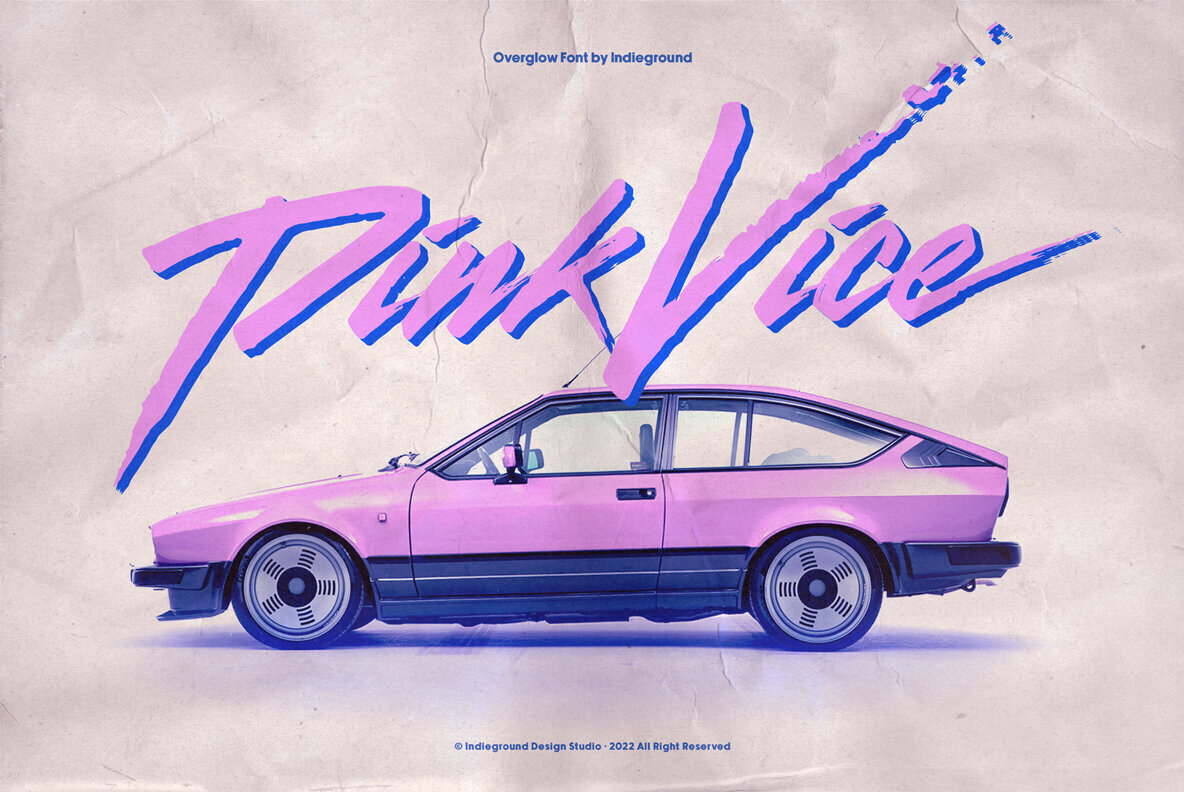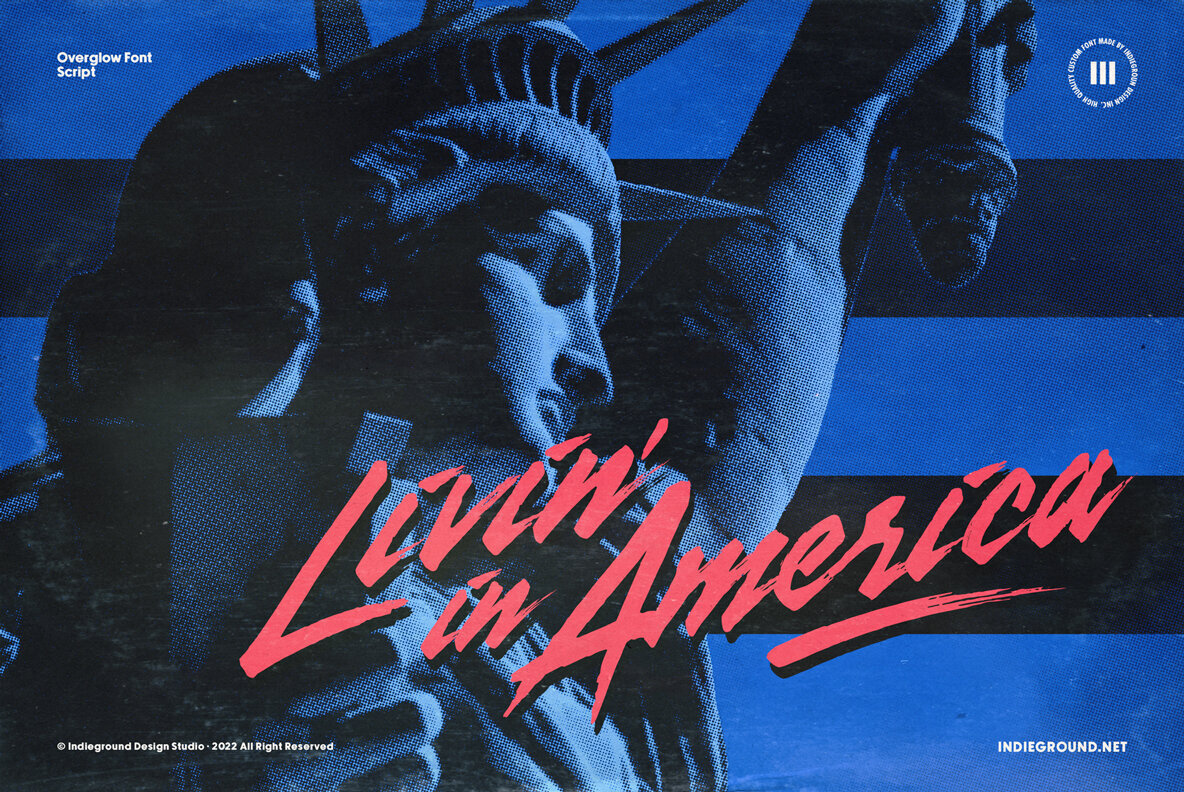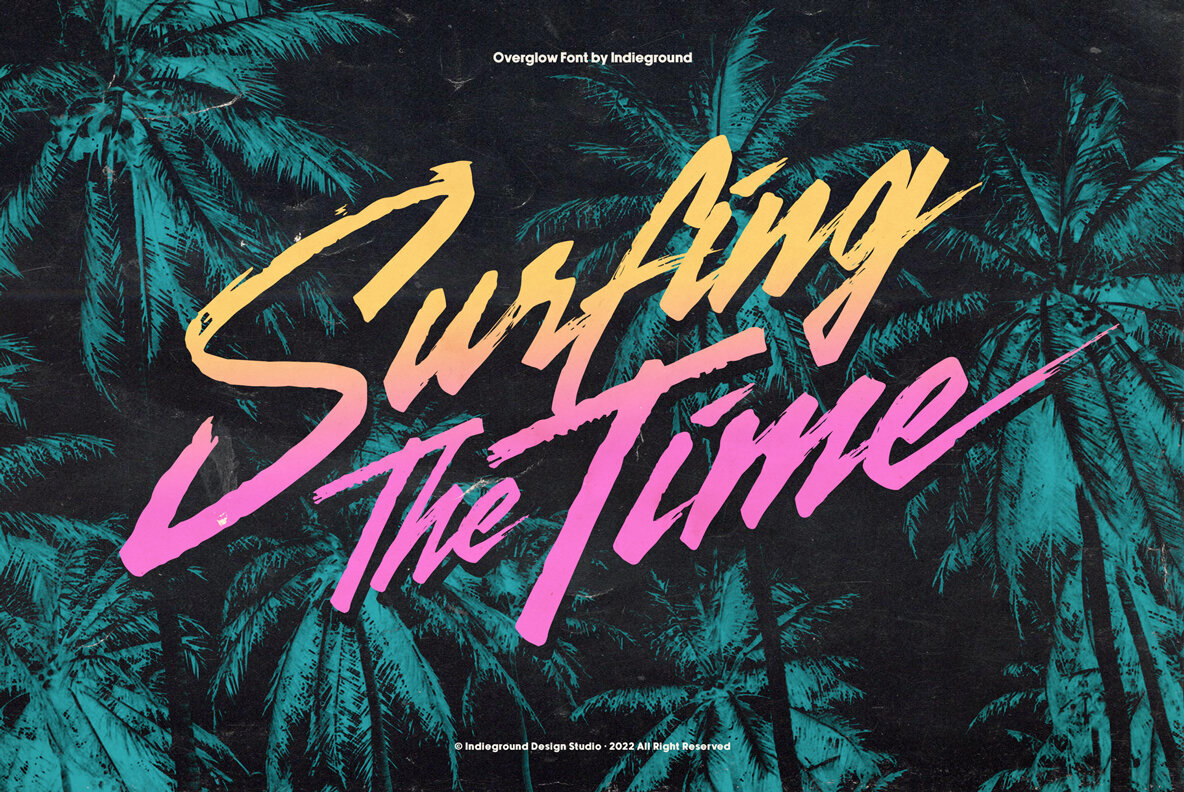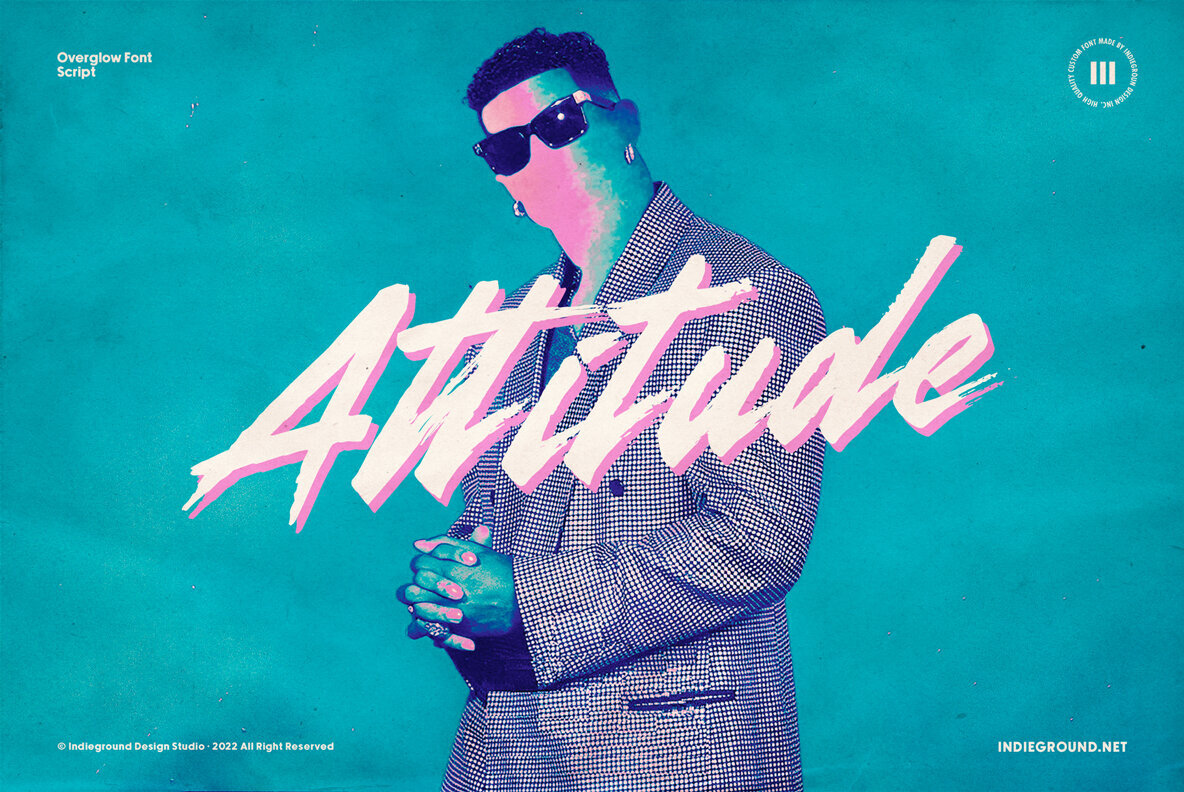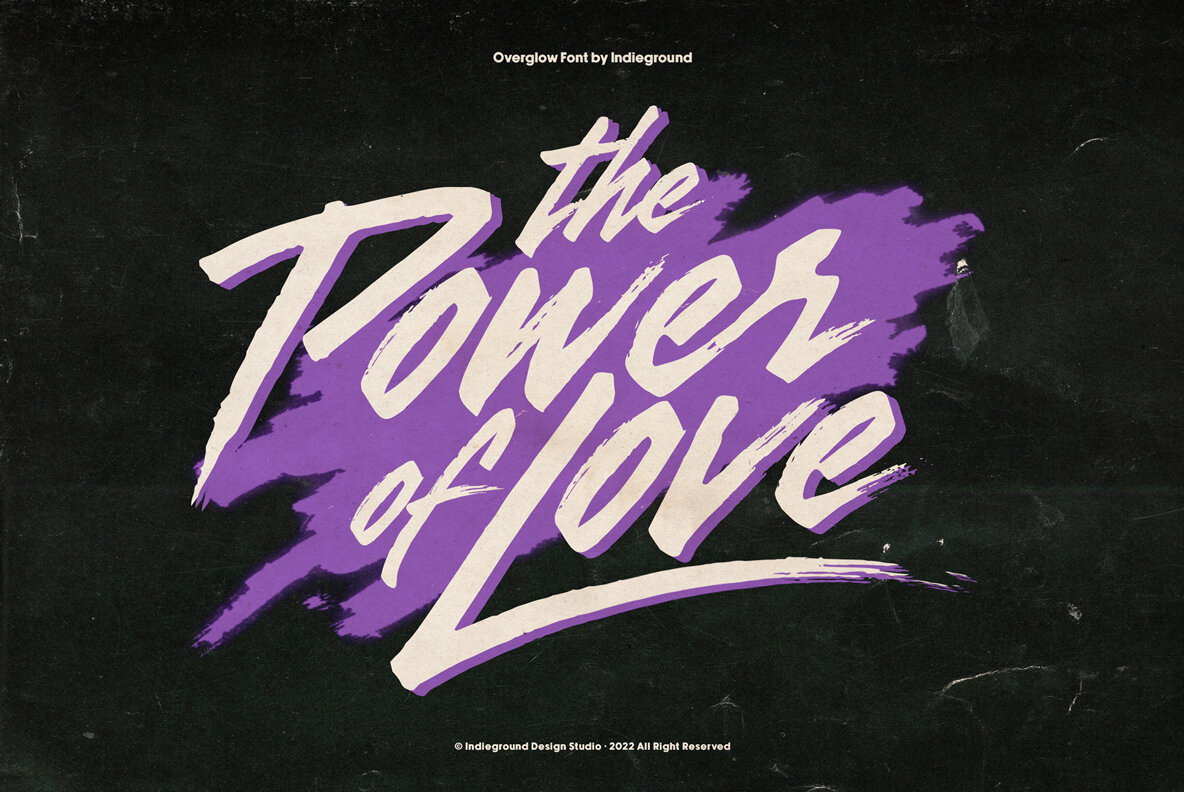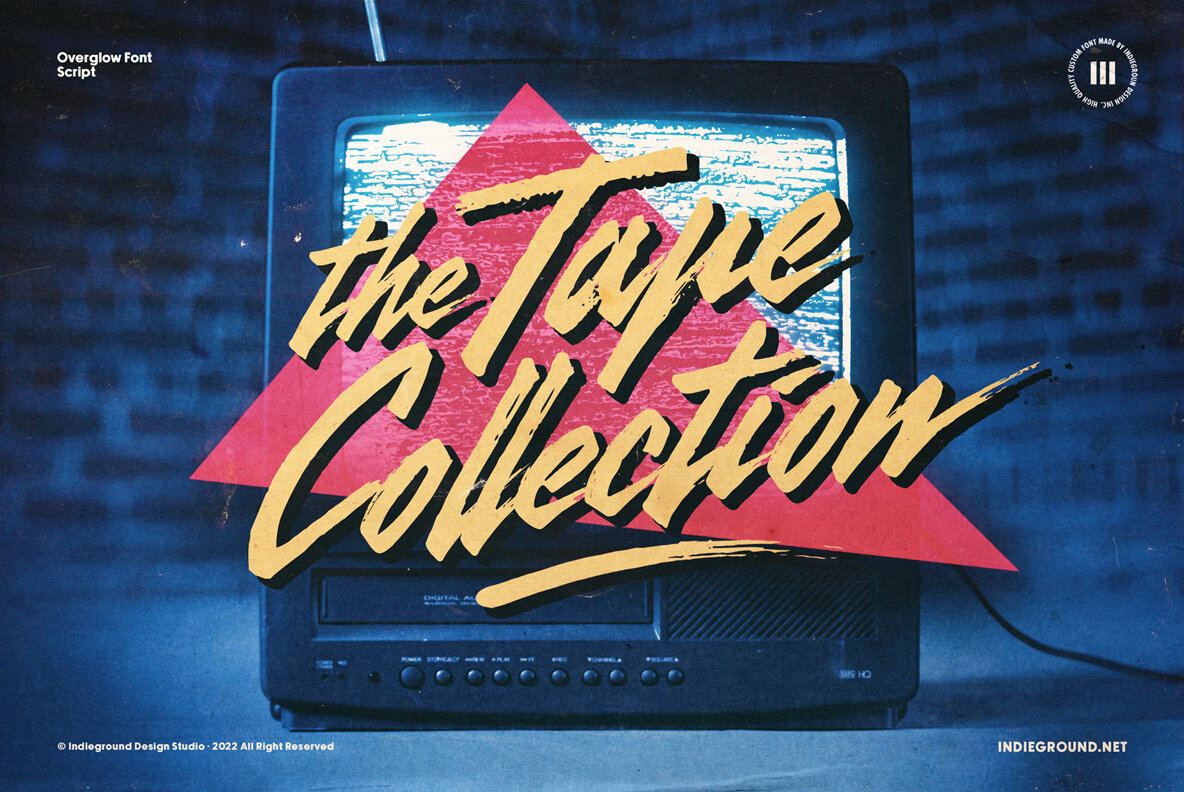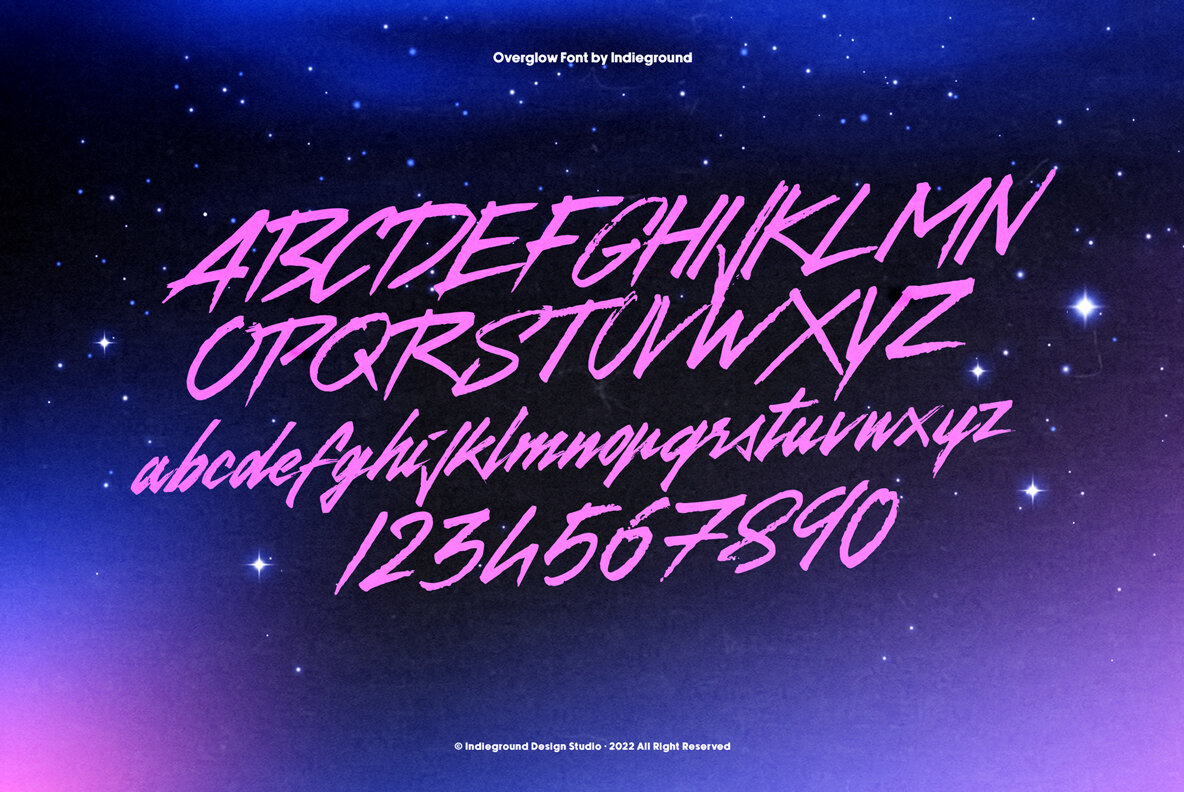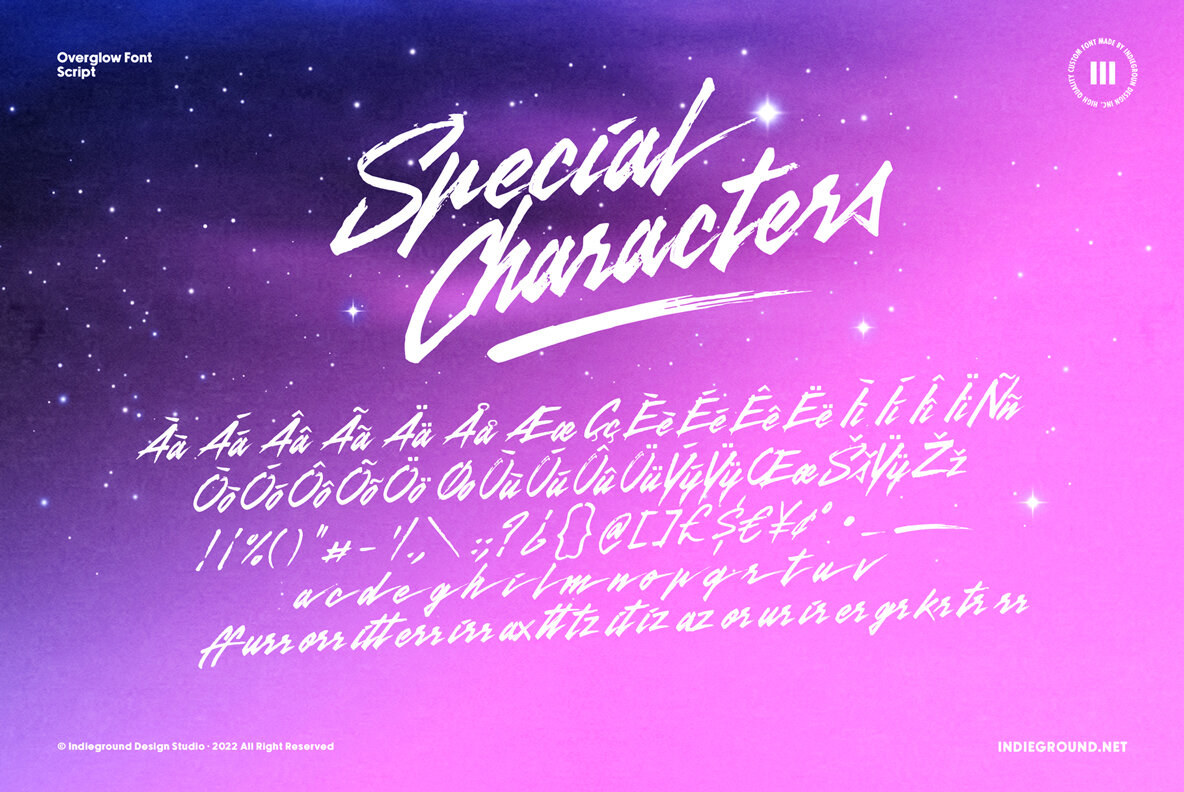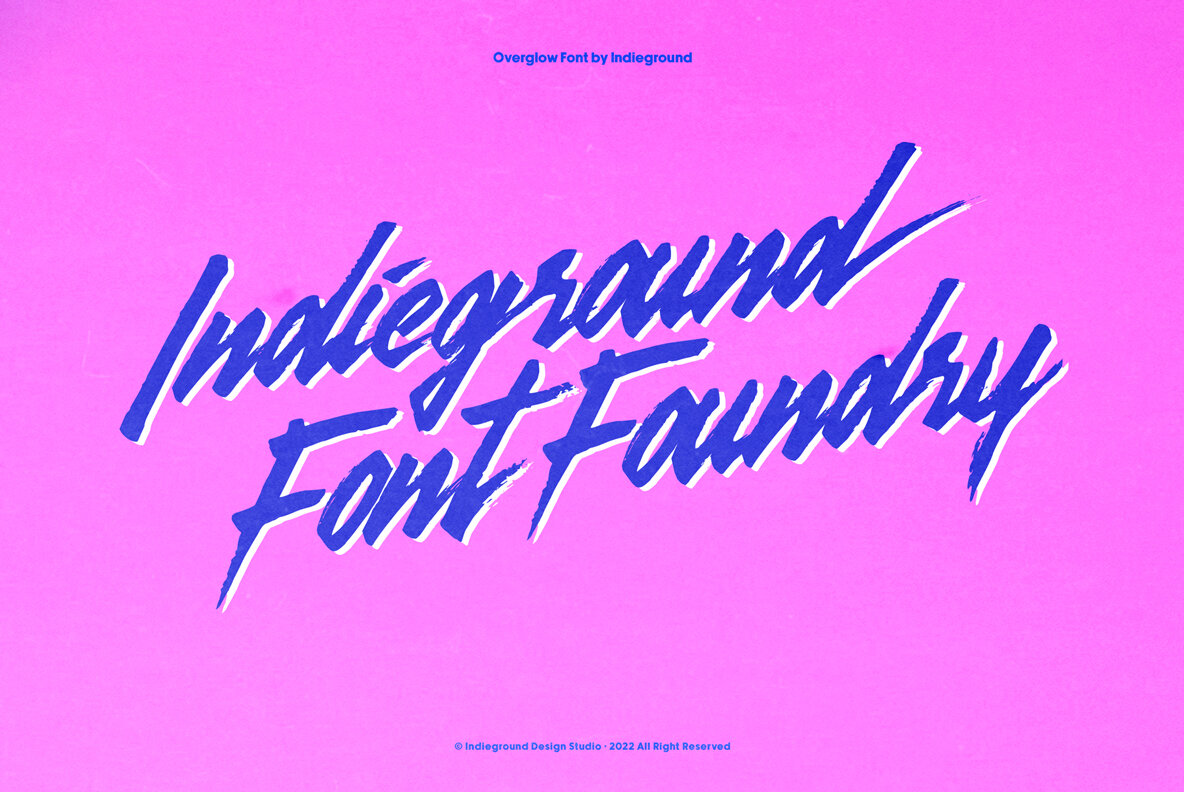
Overglow
Overglow Font – This awesome calligraphic font with a retro taste was designed in collaboration with artist Alessandro Strickner aka Overglow! Designed specifically for artworks with an 80s and 90s atmosphere, this font is a perfect match for synthwave, vaporwave and aesthetic elements. Ideal for titles and logotypes, Overglow is a versatile font that can be used in so many ways – thanks to its many ligatures, underlines and glyphs this is a multitasking font!